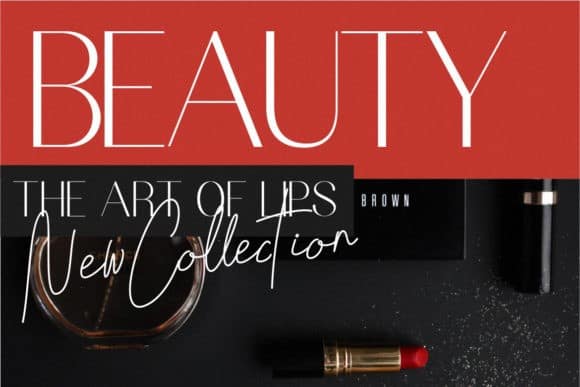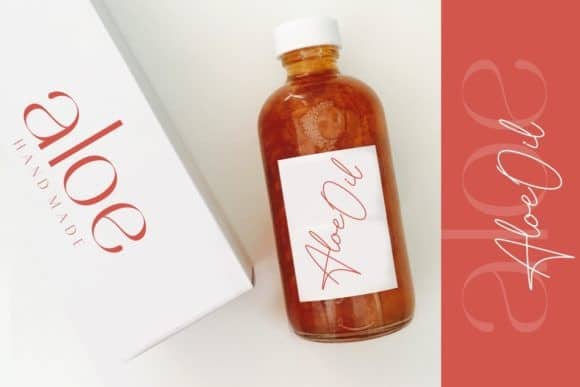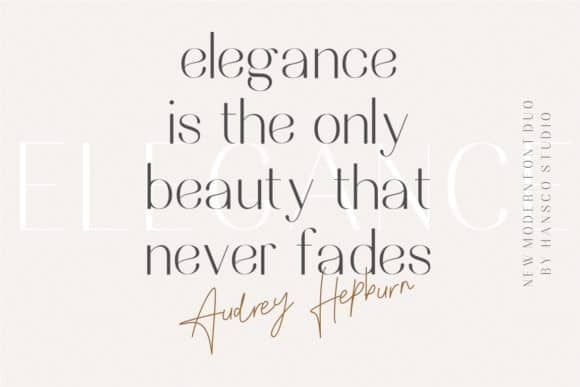
Nesans Sans Serif Font
Nesans Sans Serif Font is a cute scrapbooking font ! It’s incredibly elegant and beautifully rounded sans serif font that will add a timeless look to any design project!. Made from font designer named HansCo. It comes in lowercase and uppercase, numbers, special characters & multilingual characters. It’s perfect for logos/logotype, headlines/headers and layout design.